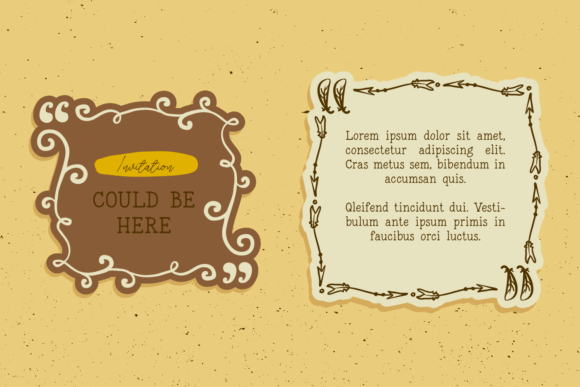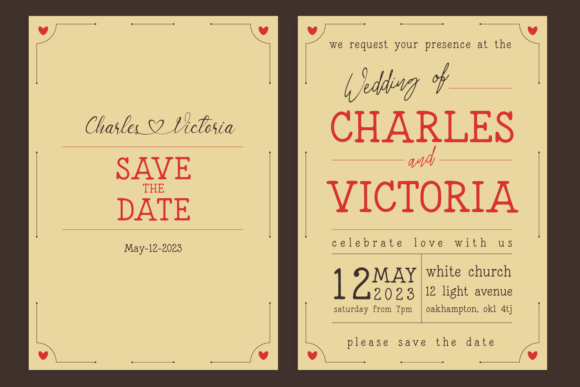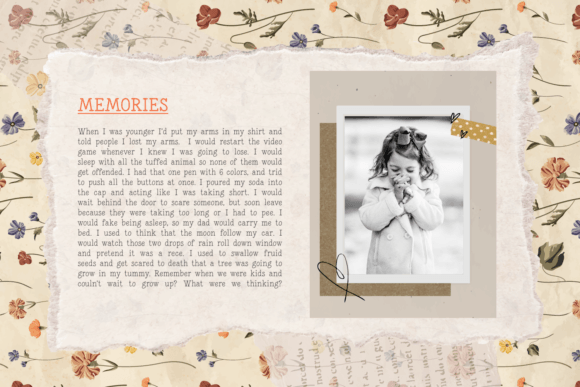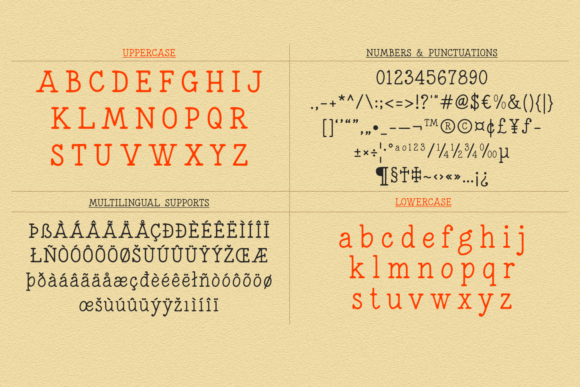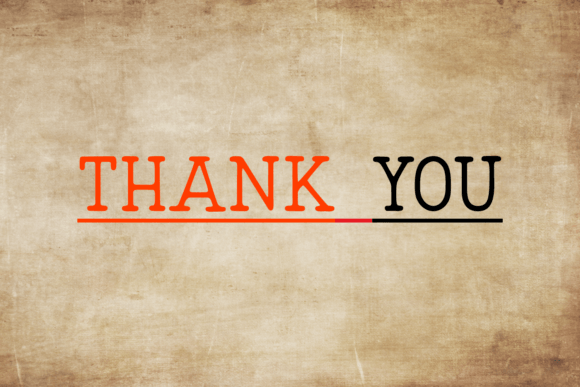
Introduction to Namex Font
Namex is a handwritten font with serifs.
It tends to be a slab serif style while maintaining the hand-drawn shape, making it look original and non-standard It has a curve at each corner so it doesnโt look stiff.
Key Features of Namex Font